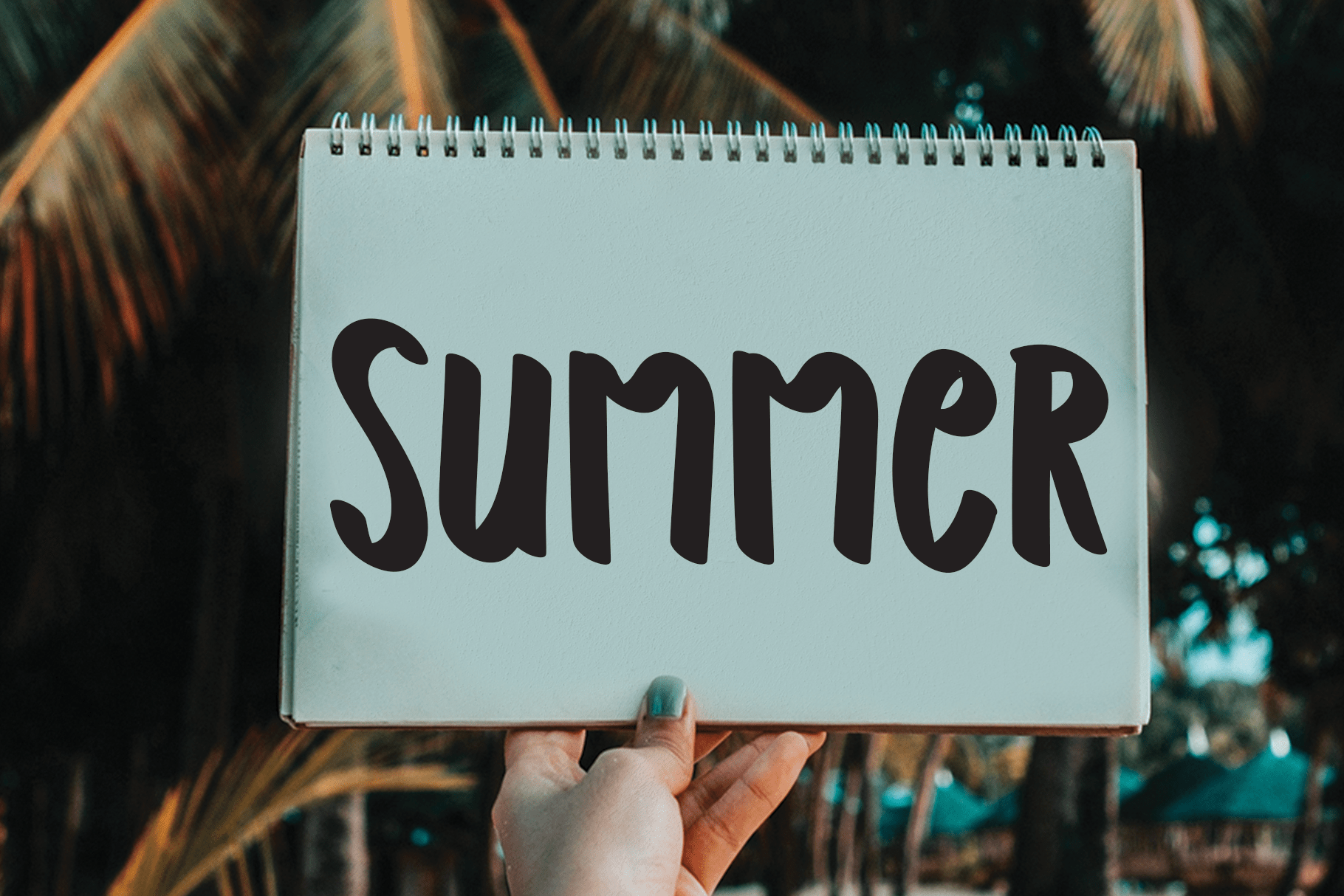
Beautiful In Summer Font
Beautiful In Summer Display Font
This is a simple and informal display font. This adaptable font will look great on a variety of design ideas. It will add a fun and friendly touch to each of your projects!
the latest style letters are perfect for wall displays, wedding invitations, social media post logos, advertisements, product packaging, product designs, labels, photography, watermarks, invitations, stationery, and any project that requires taste handwriting.